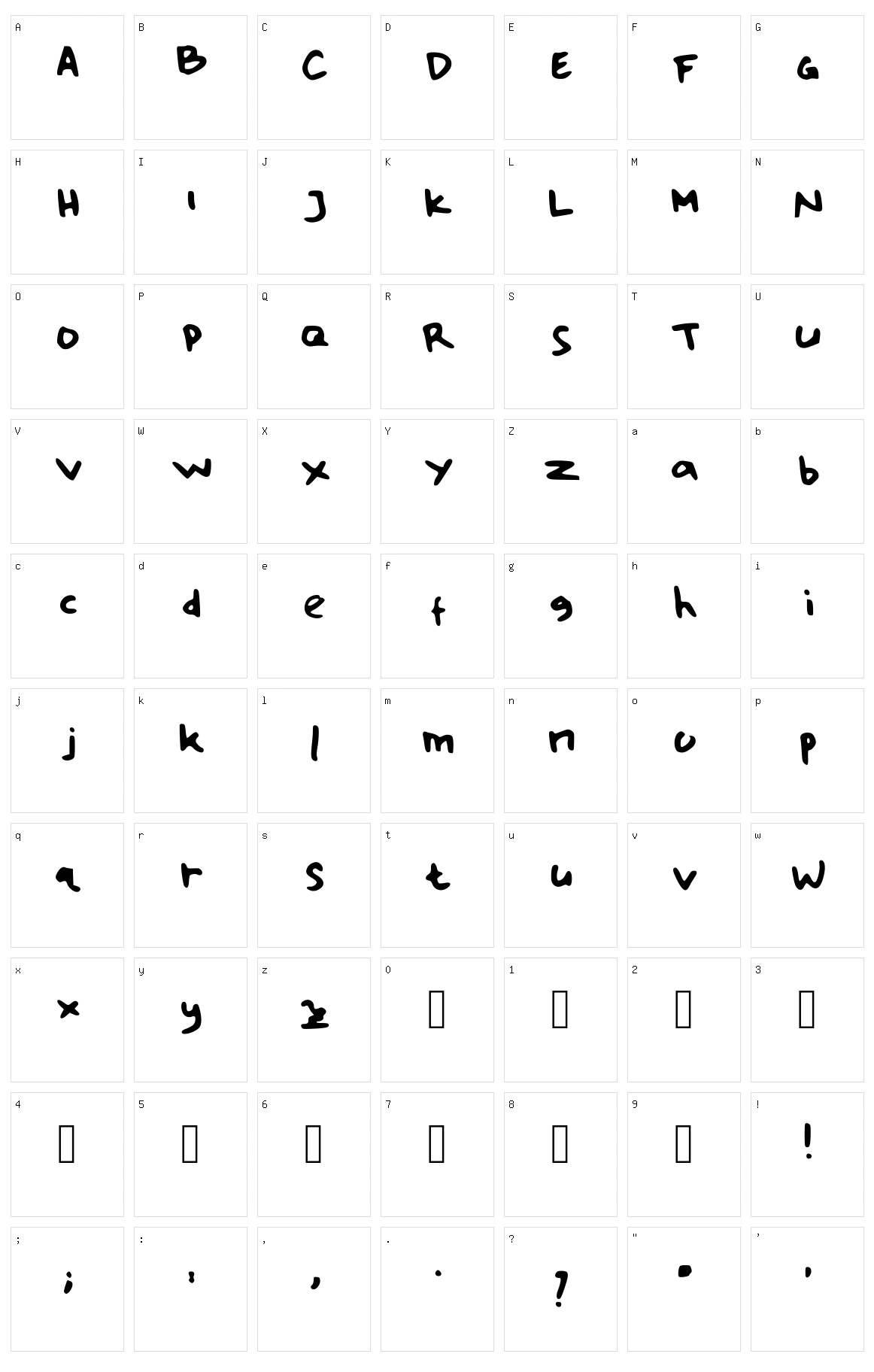
The free font Handwrite is carefully designed by Muhammad Wulani, showcasing a thoughtful balance of creativity and usability and falls under the Script font style. When you download the ZIP file, it contains only 6.45 KB of font files, making it lightweight and quick to download. Please review the license details below to understand permitted usage and distribution rights. If license information is not available, we recommend using this font for personal projects only or contacting the author directly for commercial usage permissions.